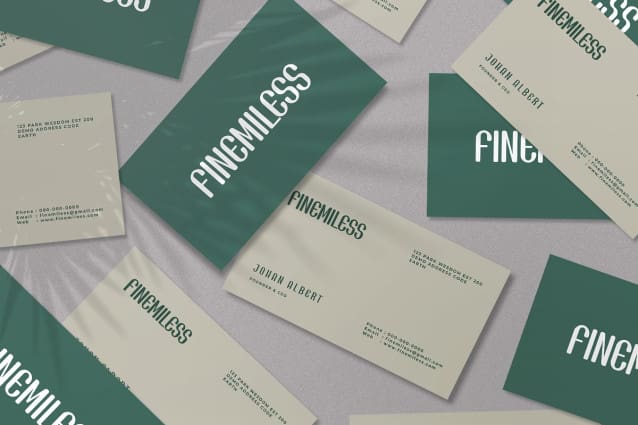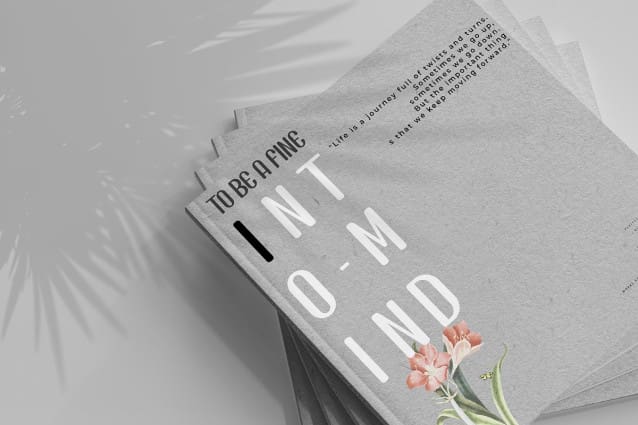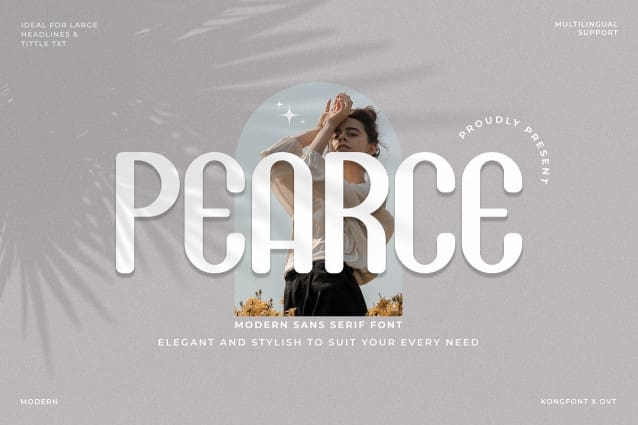
Pearce Sans Font
Pearce Sans Font, a modern sans serif font designed to bring a touch of minimalist elegance to any project. Perfect for those who value clarity and functionality in their typography, Pearce features a clean, uncluttered design that is ideal for a wide range of applications
Pearce’s sleek lines and simple forms make it an excellent choice for branding, digital interfaces, and print media. It provides effortless legibility and a professional appearance, making it suitable for corporate communications, sophisticated web design, and stylish advertising campaigns. The font includes a variety of weights and styles, comprehensive numerals, punctuation, and extensive multilingual support, ensuring its versatility and adaptability across different mediums and languages.
Whether you’re creating a modern corporate identity, designing user-friendly digital content, or crafting eye-catching promotional materials, Pearce Sans enhances your work with its refined simplicity and modern appeal.
Pearce Sans Font is the essential modern sans serif font for designers who seek functionality and elegance in their typographic tools.